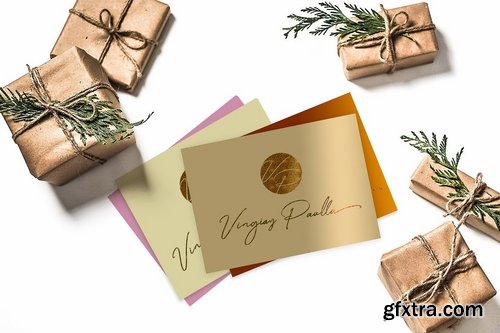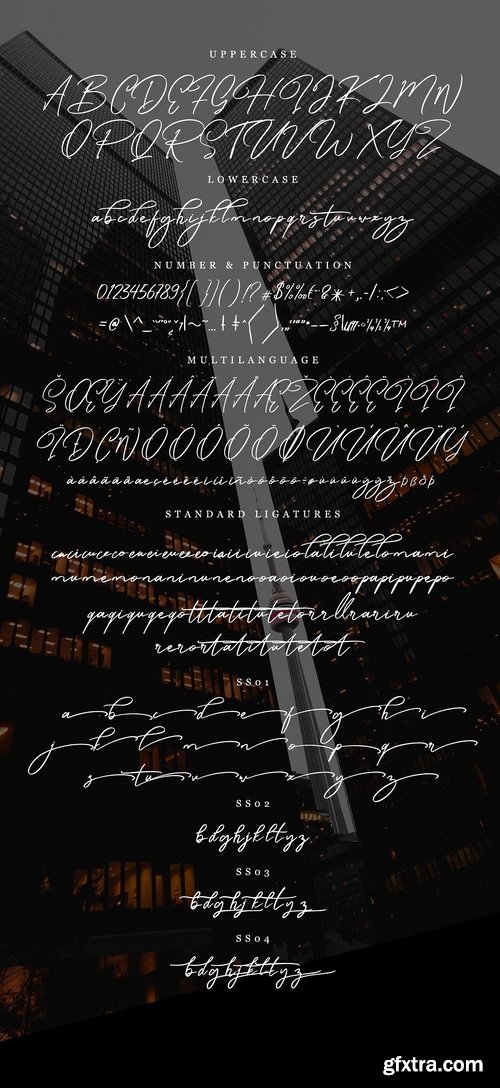
Caramello - Handwritting Script Font
Caramello is handwritten script font with signature style. Suitable for design, element design, wedding, event, t-shirt, logo, badges, sticker, and awesome work, etc...
Standard Ligatures : ca,ci,cu,ce,co,ea,ei,eu,ee,eo,ia,ii,iu,ie,io,la,li,lu,le,lo,ma,mi,mu,me,mo, na,ni,nu,ne,no,oa,oi,ou,oe,oo,pa,pi,pu,pe,po,qa,qi,qu,qe,qo,tt,ta,ti,tu,te,to,rr,ll,ra,ri,ru,re,ro,rt,at,it,ut,et,ot. Multilanguage Support : ÀÁÂÃÄÅÆÇÈÉÊËÌÍÎÏÐÑÒÓÔÕÖØÙÚÛÜÝßàáâãäåæçèéêëìíîïðñòóôõöøùúûüýÿ Feature Of The Font: Caramello OTF And TTF Caramello Web Font Open Type Features Fonts PUA Encodes Unique style fonts Multilanguage Support How to install fonts: Double click at the font files or Click Install fonts Word, Adobe Illustrator, Adobe Indesign and Coreldraw or Many More, can use for edit the font Ready to use "Caramello" for Awesome Work